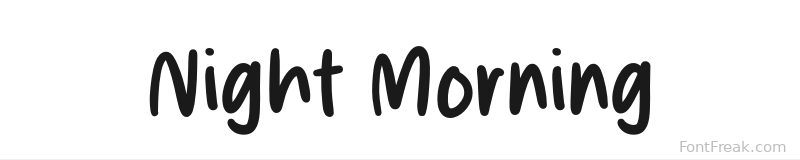
Night Morning
The Night Morning font by MJType is a captivating handwritten typeface that beautifully captures the essence of both tranquility and creativity. This font is characterized by its playful strokes and varying weight, which lend a sense of warmth and approachability to any design. The letters exhibit a charming, organic flow that enhances readability while maintaining a casual elegance, making it a versatile choice for various applications. The spacing between characters is well-considered, allowing for seamless integration into different layouts without compromising visual harmony.
Ideal for use in wedding invitations, the Night Morning font brings a personal touch to special occasions, infusing designs with a heartfelt sentiment. It also shines in the realm of restaurant menus, where its inviting style can evoke a cozy atmosphere, encouraging diners to linger over their choices. Additionally, this font can elevate branding materials for small businesses, providing a unique and memorable identity. Content creators will find it particularly useful in social media graphics and blog headers, where its distinctive character can effectively capture attention.
The target audience for the Night Morning font includes graphic designers seeking a unique typeface for their projects, small business owners looking to establish an engaging brand presence, and content creators aiming for a relatable and artistic flair. With its freeware license, the Night Morning font free download offers an accessible option for those looking to enhance their design toolkit without financial constraints.
What truly sets the Night Morning font apart is its ability to convey both warmth and creativity, making it an excellent choice for any project that seeks to foster connection and engagement. Its artistic flair, combined with practical usability, ensures it will remain a cherished resource for designers and creators alike.